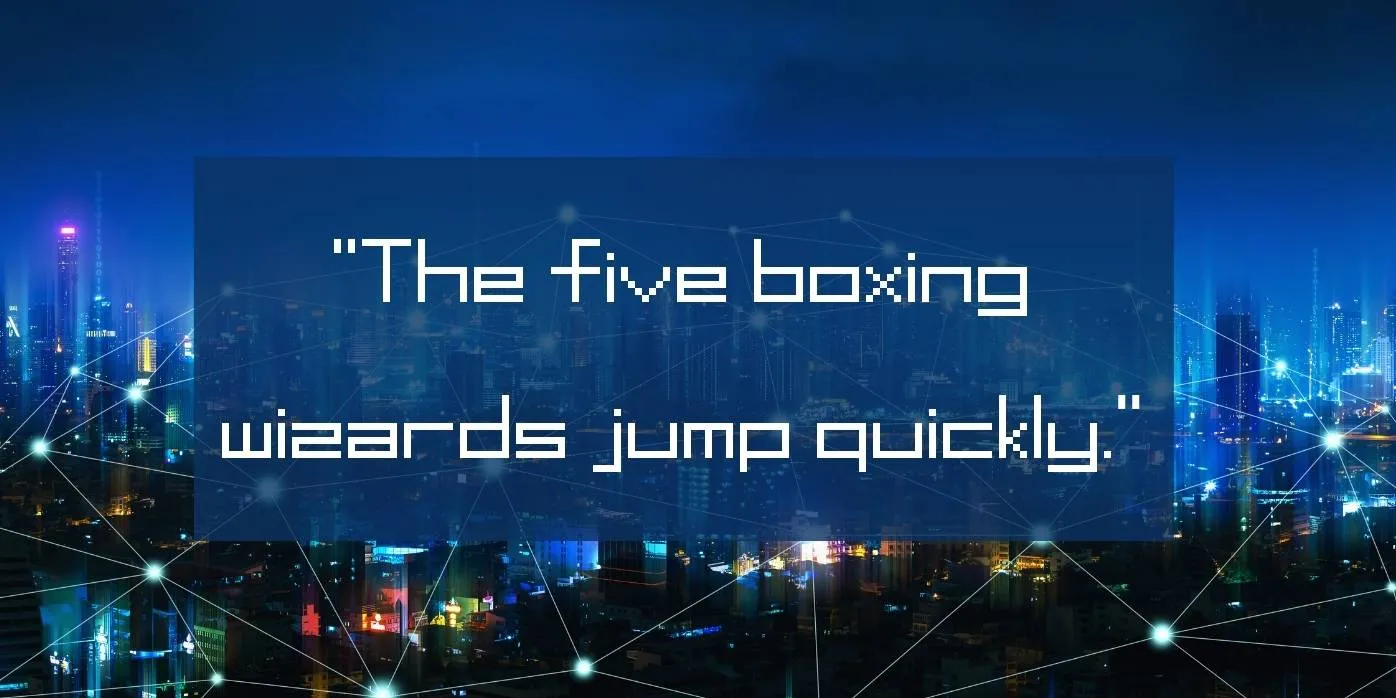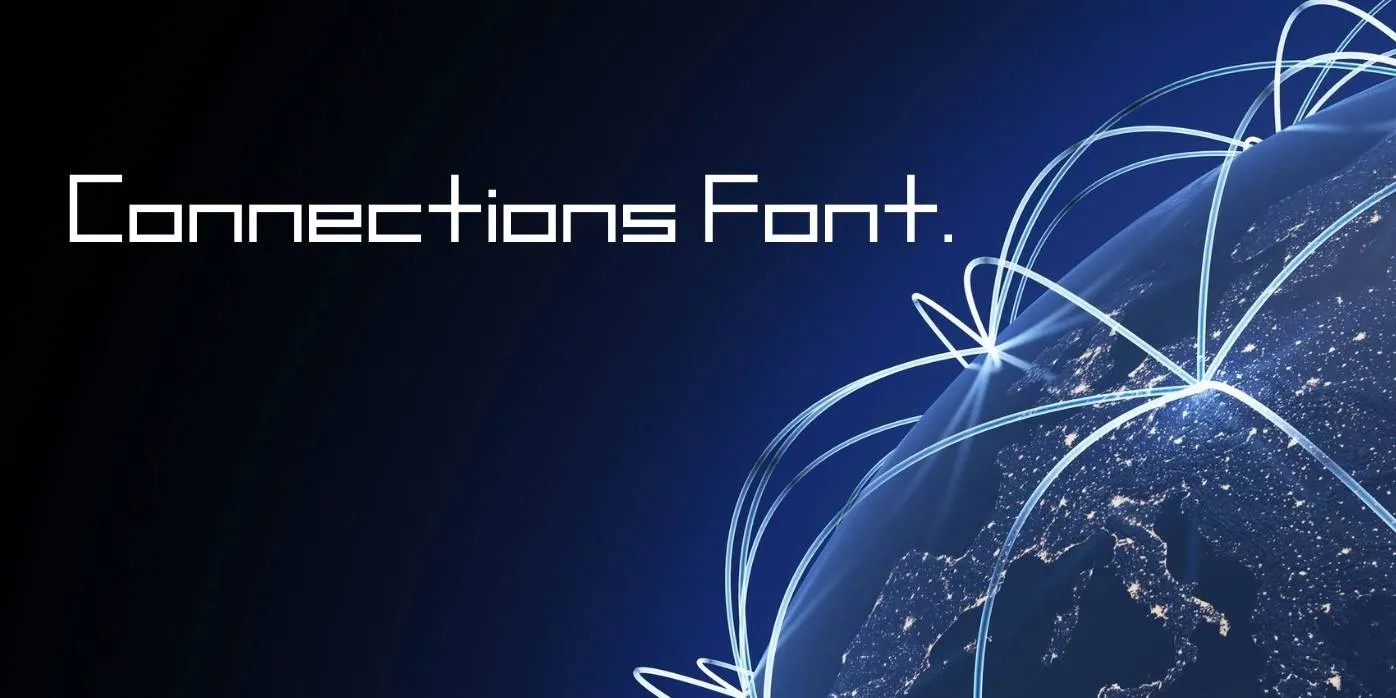
Connections Font
Here, we present the most stunning font family that is famous with the name Connections Font. It belongs to the Sans-Serif font family. This cozy and stylish font family was designed by very intelligent and brilliant designer  Jasper Brik. Firstly, this classy typeface was released in the year 1995.
This awesome typeface is available in various types of weights. Some of its famous and common out weights are Bold, Medium, and Italic. These weights increase its overall performance. This amazing font is best for other different software like Abobe Photoshop, Canva, and so on.
Another thing is that there are some advanced effects are used in the lettering of this typeface. This is the reason for its uniqueness. Your designs look more perfect by these effects. This marvelous typeface comes in unique 206 styles and is also available in different unique more than 195 Glyphs.
Highway Gothic Font is the most similar typeface to this tremendous font family. Its characters increase its power these are Symbols, numerals, uppercase, lowercase, and many more. The different designer’s first choice is to pick up this advanced features font family for their various types of projects. If some want to make their designs attractive and eye-catching then download this awesome font from our websites.